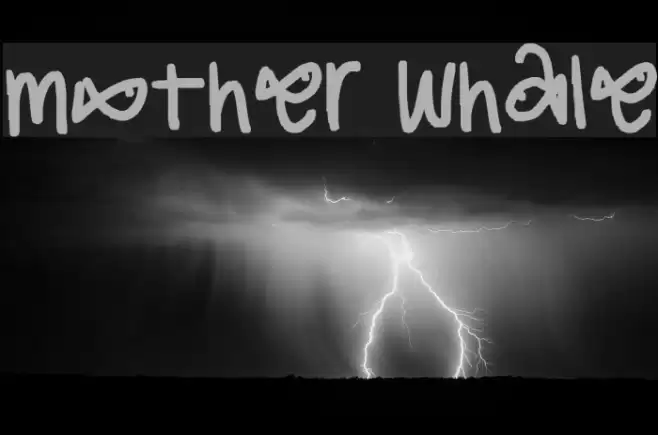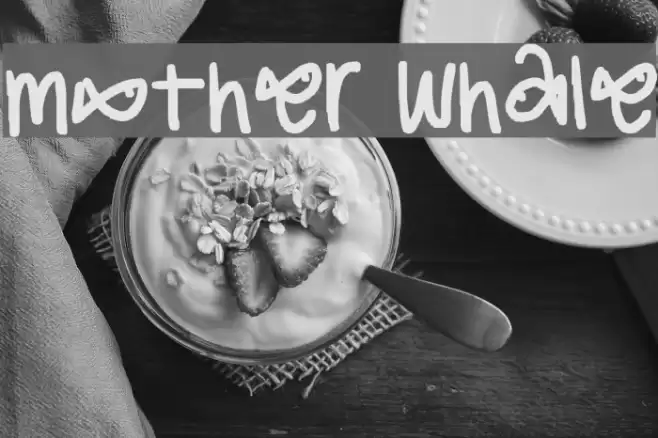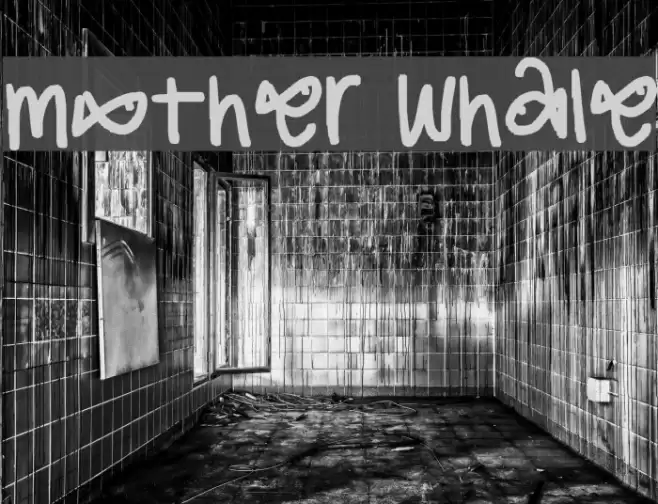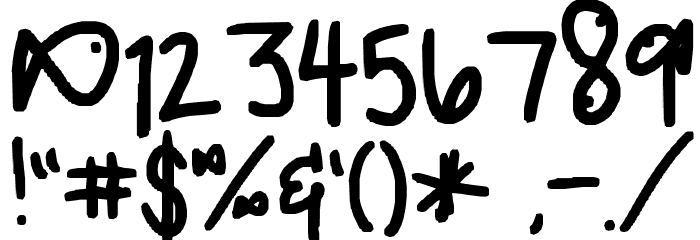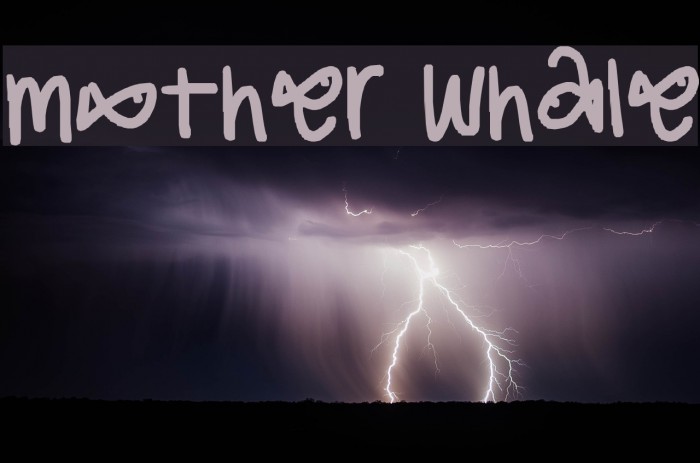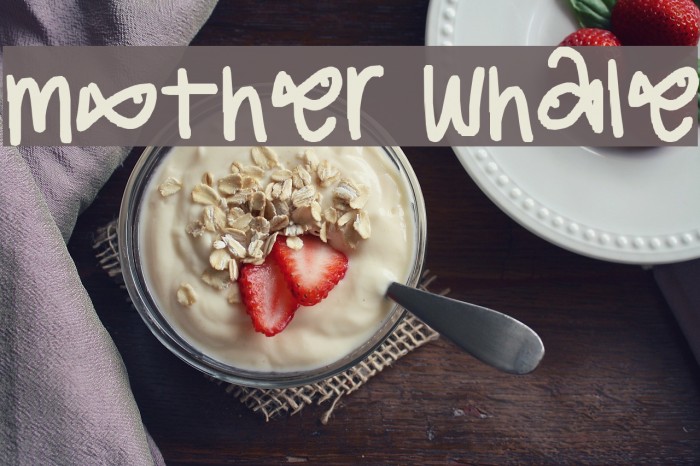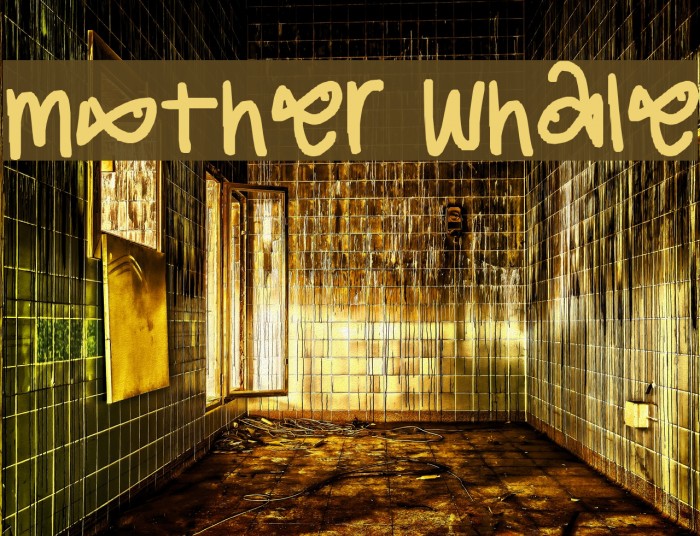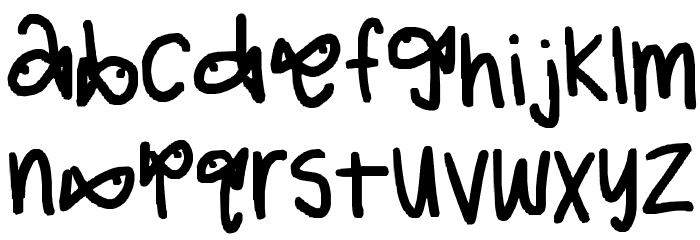
mother whale Font
mother whale Description
This playful and bold font features a handwritten style with a casual and friendly appearance. The characters are slightly irregular, adding to the font's charm and approachability. The uppercase and lowercase letters maintain a consistent thickness, giving the font a cohesive look. The numbers and special characters are designed to match the overall style, ensuring versatility across different uses. The font's informal nature makes it suitable for creative projects where a personal touch is desired.
A playful, bold handwritten font with a casual and friendly style from Uncategorized fonts.
- Proposed Projects: Ideal for children's books, greeting cards, posters, and informal branding projects.
- Overall Style: Casual and Playful
- Use Case: Headlines, Posters, Informal Branding